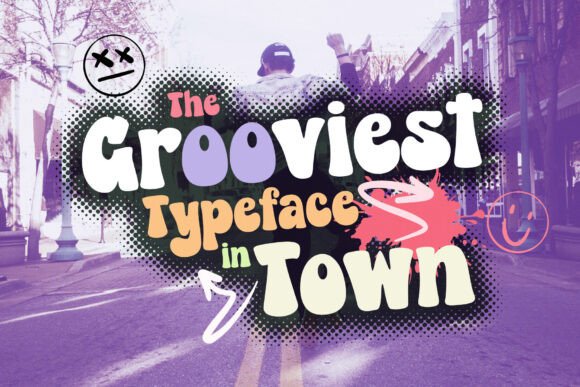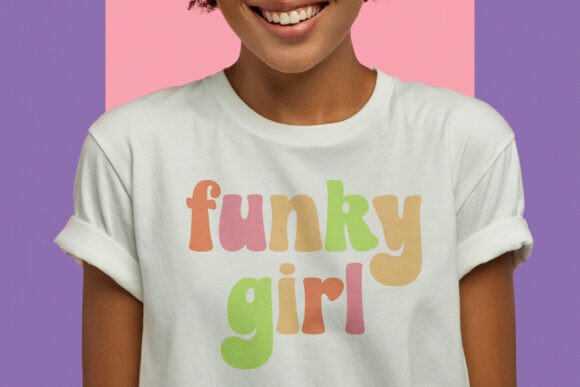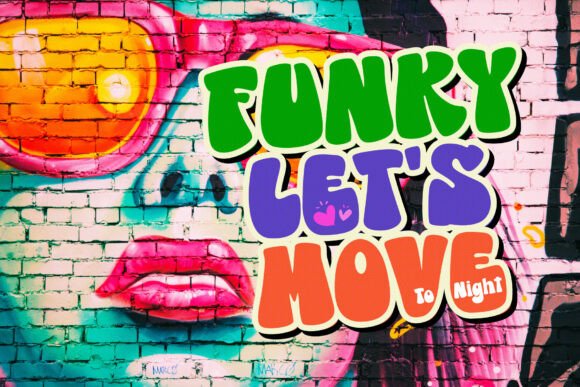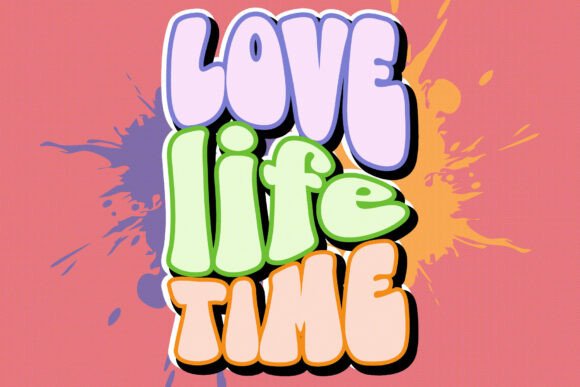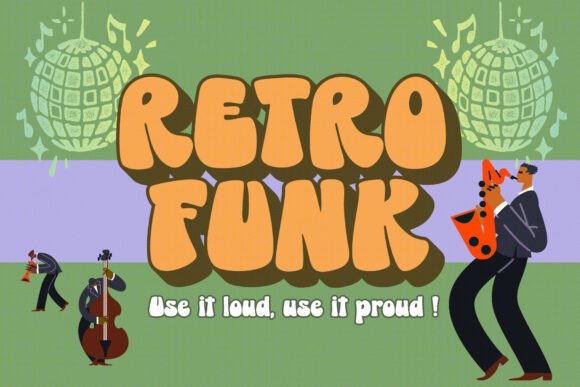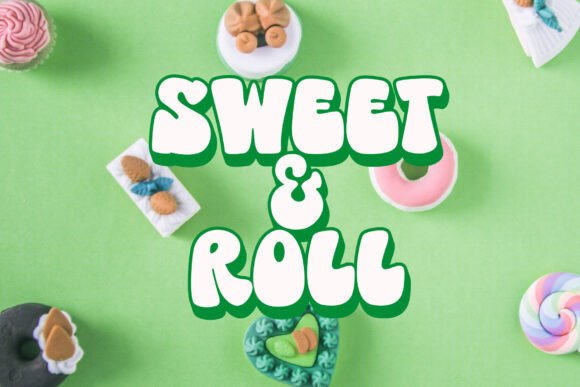
Step Back in Time with Funky Derix: The Ultimate Retro Display Font
I’ll never forget the design project that led me to Funky Derix. I was working on a retro-themed poster for a client’s vintage-inspired clothing brand, and I was struggling to find the perfect font. The client wanted something bold, playful, and reminiscent of the 60s and 70s, but I just couldn’t seem to find the right fit. That was until I stumbled upon Funky Derix, a bold and playful display font that captures the essence of the disco era and the free spirit of the psychedelic movement.
A Personal Review of Funky Derix
- ✨ Unique Retro Style: Funky Derix brings a fresh take on retro typography, blending classic elements with a modern twist.
- ✅ Highly Versatile: This font is perfect for a wide range of design projects, from headlines and branding to posters and packaging.
- 💥 Attention-Grabbing: The bold and playful design of Funky Derix is sure to grab attention and make your designs stand out.
While Funky Derix is an amazing font, there are a few things to keep in mind. 🤔 For example, the font can be a bit overwhelming for body text, so it’s best used for headlines and titles. Additionally, some of the more intricate details may not render well at smaller font sizes. ⚠️
The Designer Inspiration Behind Funky Derix
Funky Derix was inspired by the vibrant energy of the 60s and 70s, when disco and psychedelia ruled the airwaves. The font’s designer, a lover of retro culture and typography, set out to create a font that captured the essence of this iconic era. With its bold lines, playful curves, and funky details, Funky Derix is the perfect font for anyone looking to add a touch of retro charm to their designs.
Q: What type of projects is Funky Derix best suited for?
A: Funky Derix is perfect for headlines, branding, posters, and packaging, but can also be used for other design projects that require a bold and playful font.
Q: Is Funky Derix available in different weights or styles?
A: Yes, Funky Derix comes in a range of weights and styles, including bold, regular, and italic.